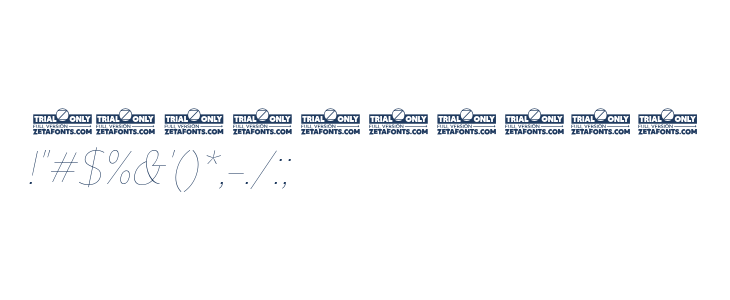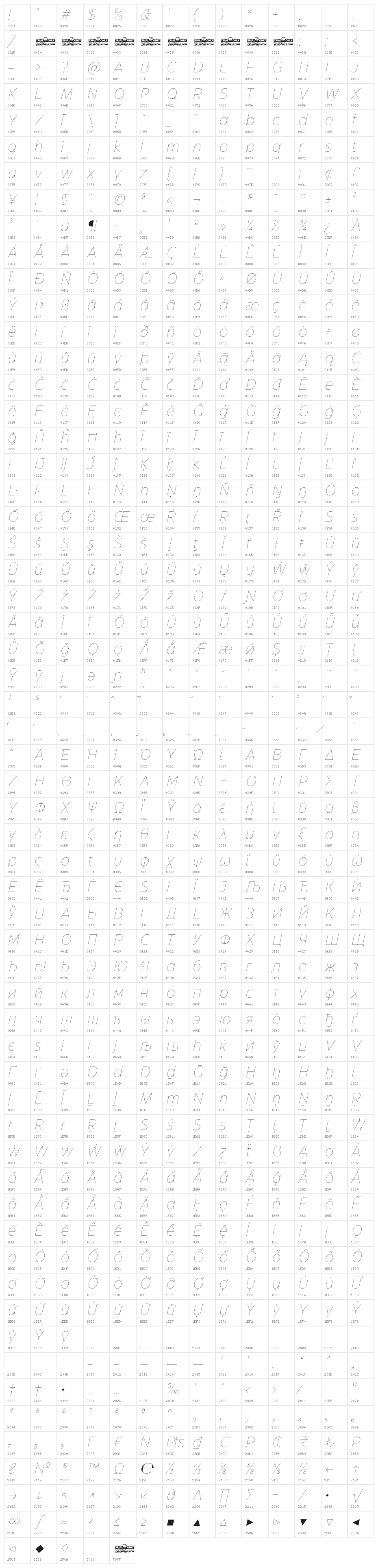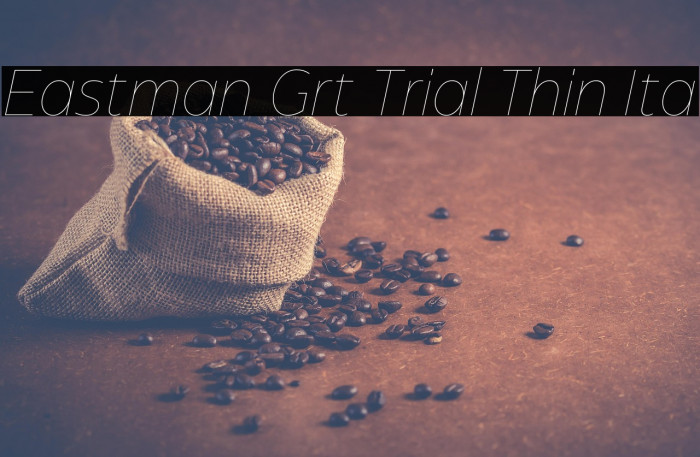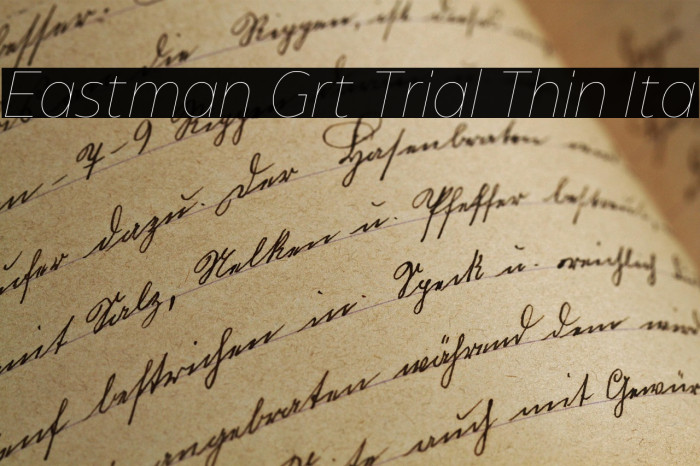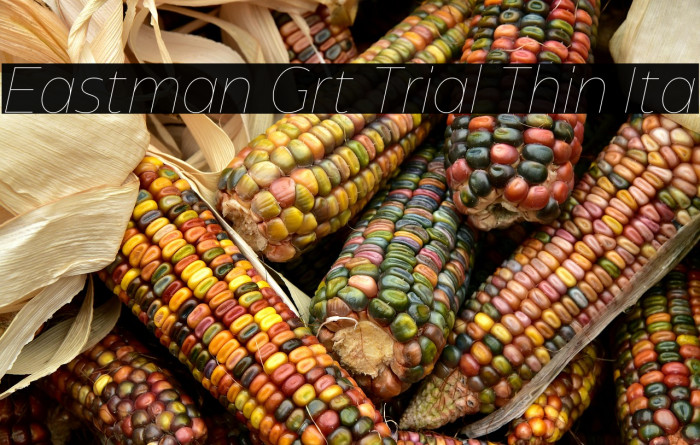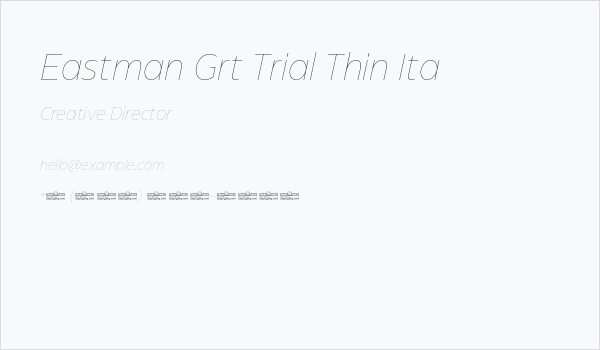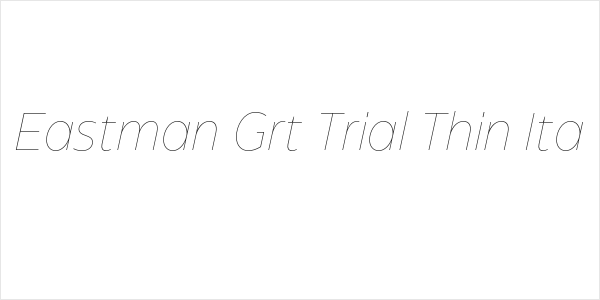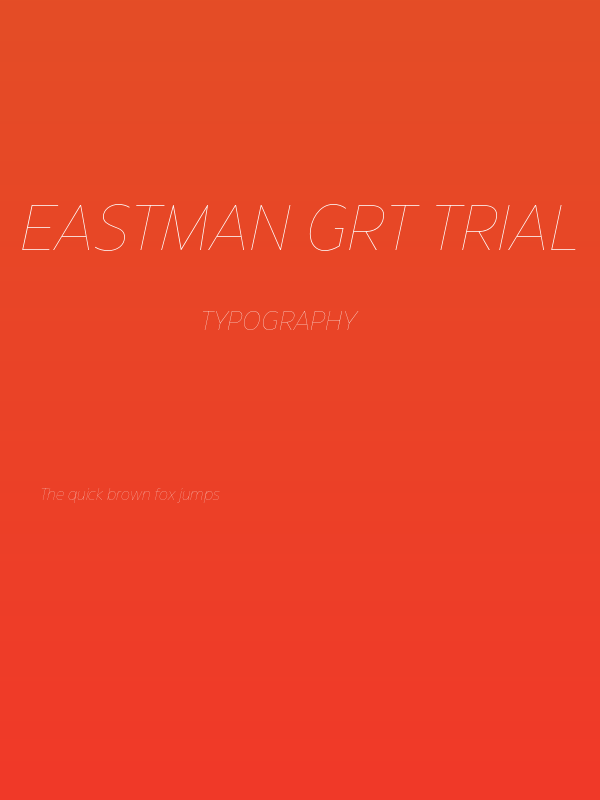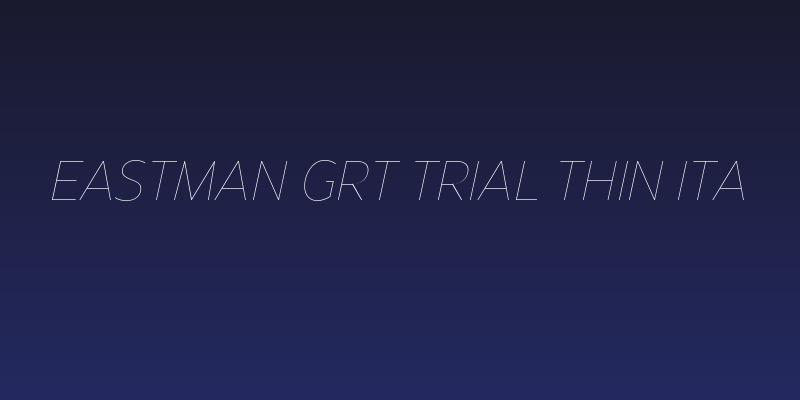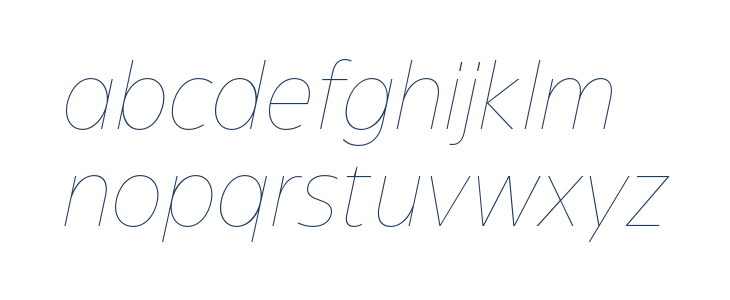
Eastman Grt Trial Thin Ita Font
Eastman Grt Trial Thin Ita Description
This font features a sleek and modern design with thin, elegant lines that give it a sophisticated and airy appearance. The characters are slightly slanted, adding a dynamic and fluid feel to the text. The uppercase and lowercase letters maintain a consistent style, with smooth curves and minimalistic details. The numerals and special characters are designed to match the overall aesthetic, ensuring a cohesive look across all text elements. This font's thin strokes and italicized form make it ideal for projects that require a touch of elegance and modernity.
| Proposed Projects | Ideal for fashion magazines, luxury branding, elegant invitations, and modern website headers. |